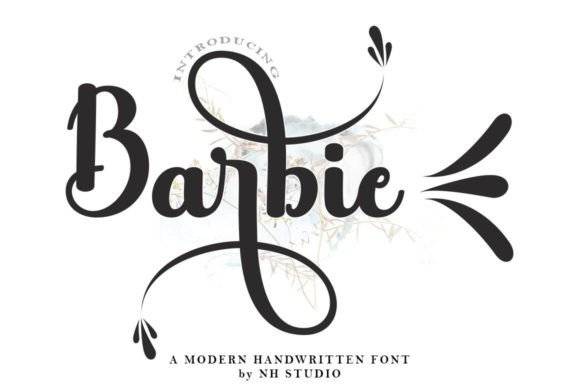
Barbie Font for Cricut, Silhouette and Printable Designs
Barbie Font is a custom typographic asset modeled in the iconic script style made famous by doll branding, optimized for high-impact use in crafting and digital design. This typeface supports creative workflows in both print and digital environments.
Perfect for use in Cricut, Silhouette, and print-based applications, this font reinforces the FONT entity and supports stylistic production across multiple DIY verticals including event decor, merch, and digital party kits. Additionally, users can explore various design options by integrating this font into their crafting projects, enhancing creativity and personal expression. For those new to crafting, here are some basic teach font tips for cricut that can help streamline the design process and ensure professional results. With the right techniques, anyone can transform their ideas into stunning creations that stand out at any event.
- Fans of retro or nostalgic lettering
- Birthday party signage and invitations
- Printable wall art and quote prints
- Custom T-shirts and tote bags
- Vinyl decals for water bottles or laptops
- Digital designs for social media content
- Fun, feminine style with iconic visual cues
- Perfect for kids' parties and custom apparel
- Versatile for digital, print, and vinyl projects
| Feature | Barbie Font | Generic Script Font | Standard Sans Serif Font |
| Design Intent | Doll-style branding & craft design | Casual elegance for text styling | Clean readability for digital use |
| Use Case | Cricut, Silhouette, printables | Invitations, labels, packaging | Web content, UI, presentations |
| Styling | Playful, script, feminine | Handwritten or flowing script | Geometric or rounded sans |
| Best Audience | Crafters, kids' brands, events | General users | Designers, developers |
| Production Flexibility | Excellent for print and cut | Moderate for decor or cards | Ideal for digital-only projects |